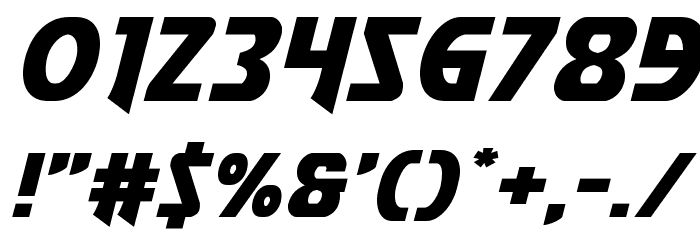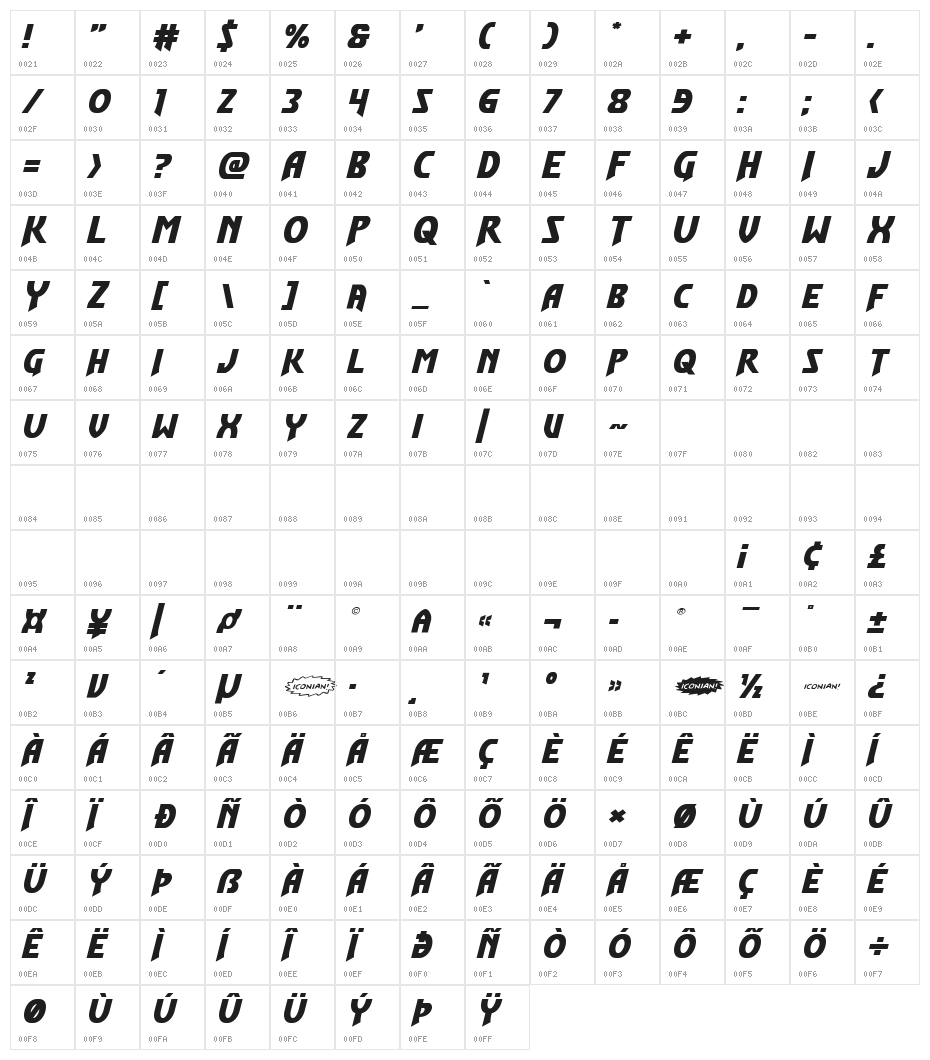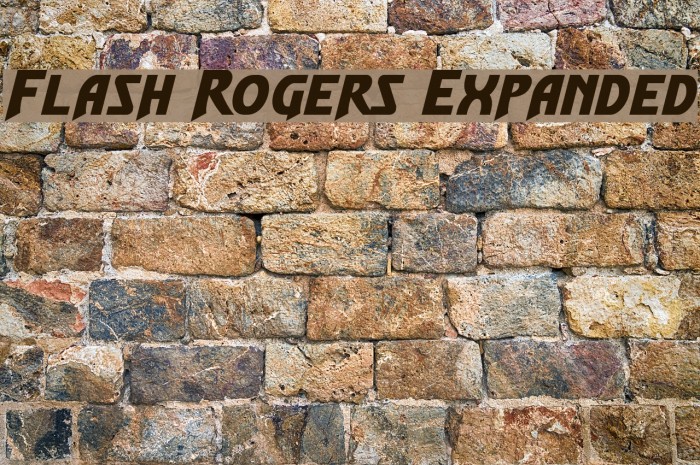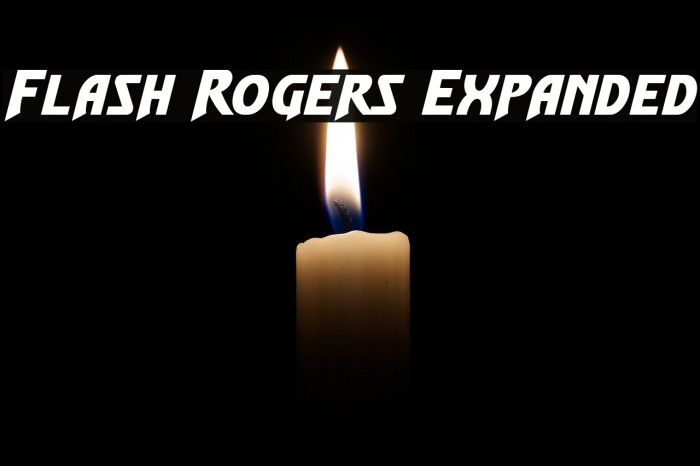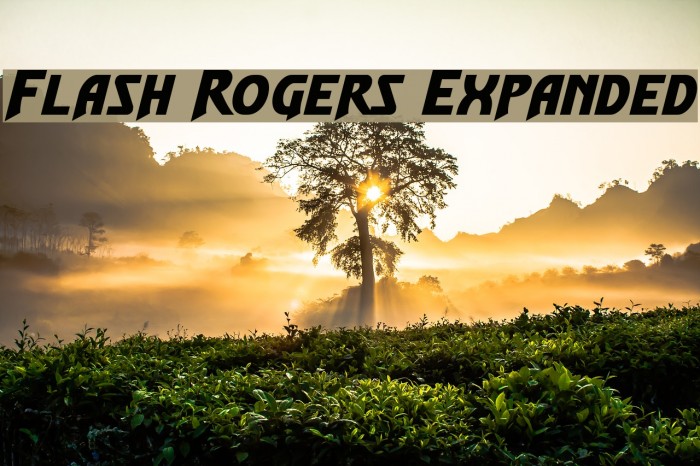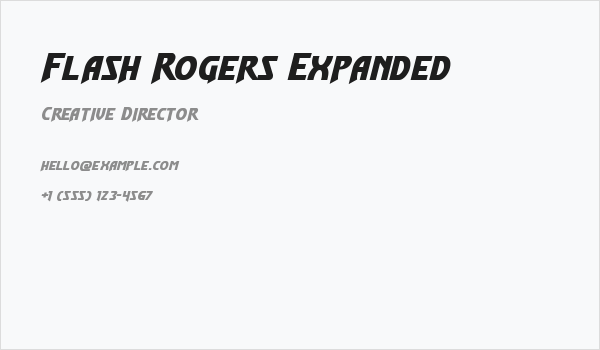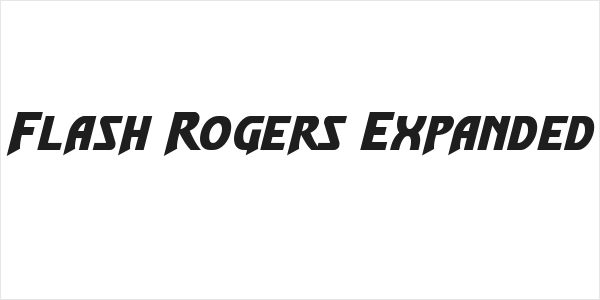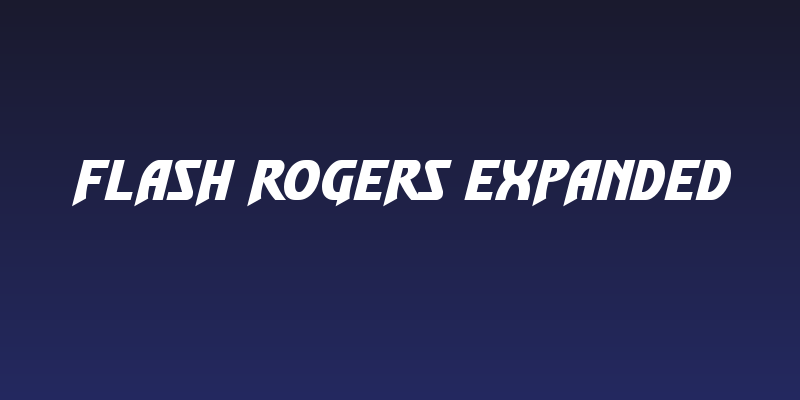
Flash Rogers Expanded Font
Flash Rogers Expanded Description
This font features a bold and dynamic style with sharp, angular edges that give it a sense of movement and energy. The characters are slightly slanted, enhancing the impression of speed and agility. It has a strong presence, making it suitable for attention-grabbing headlines or logos. The uppercase and lowercase letters maintain a consistent design, ensuring readability while retaining a unique flair. The numbers and special characters are designed to match the boldness and style of the letters, providing a cohesive look across all elements.
| Proposed Projects | Ideal for sports branding, action-themed posters, and dynamic logo designs. |